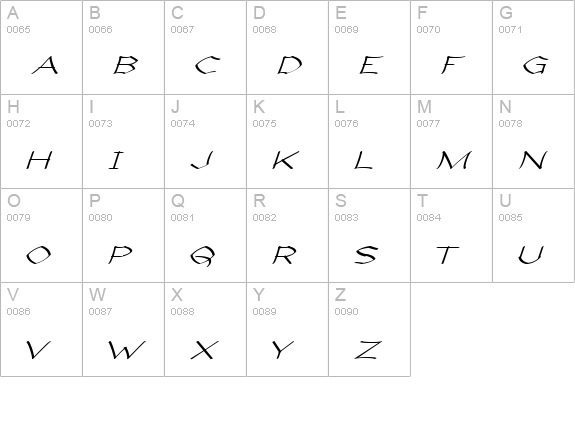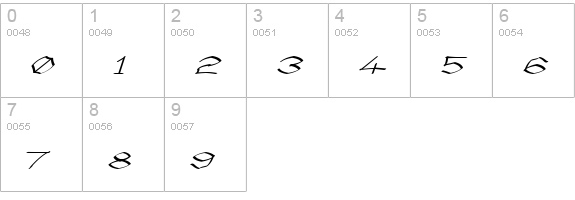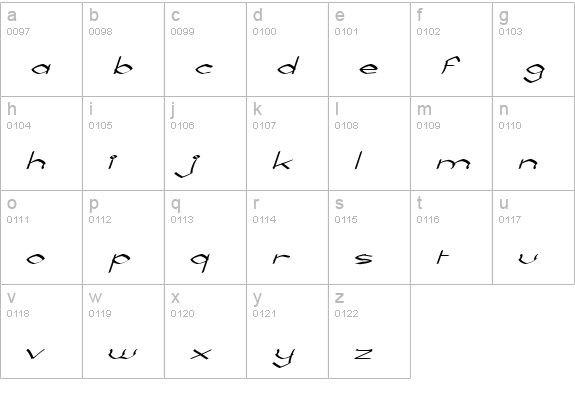
Llynfyrch Fwyrrdynn Font Details
Llynfyrch Fwyrrdynn font is a beautifully designed typeface that exudes elegance and sophistication. With its unique blend of modern and classic elements, this font is perfect for a wide range of design projects, from branding to editorial design. The intricate details of the letterforms make this font truly stand out, adding a touch of luxury to any piece of work. What makes Llynfyrch Fwyrrdynn font even more appealing is that it is available for free download at FontsMarket.com. This means that you can easily access this stunning font and use it in your projects without any cost involved. Whether you are a designer looking to add a new font to your collection or a business owner in need of a fresh look for your branding, Llynfyrch Fwyrrdynn font is the perfect choice. Download it today and elevate your designs with this exquisite typeface.